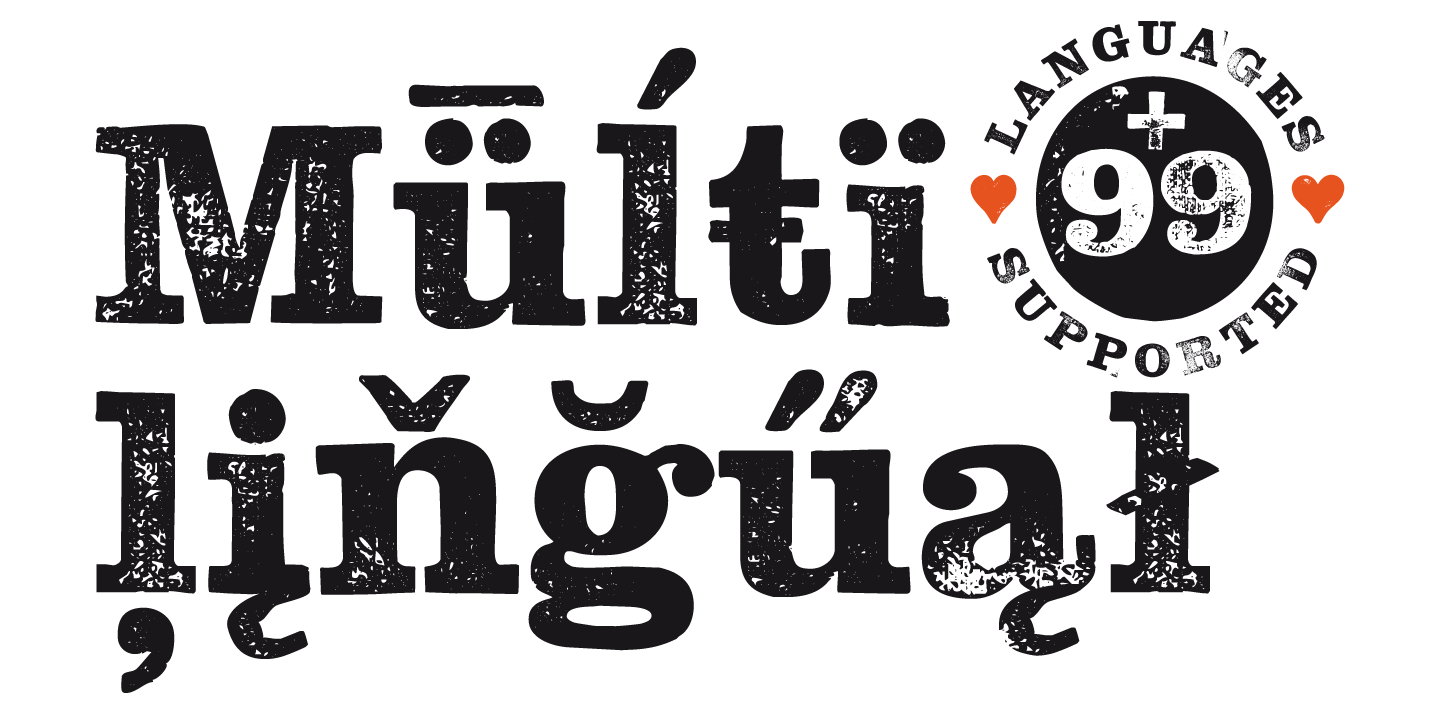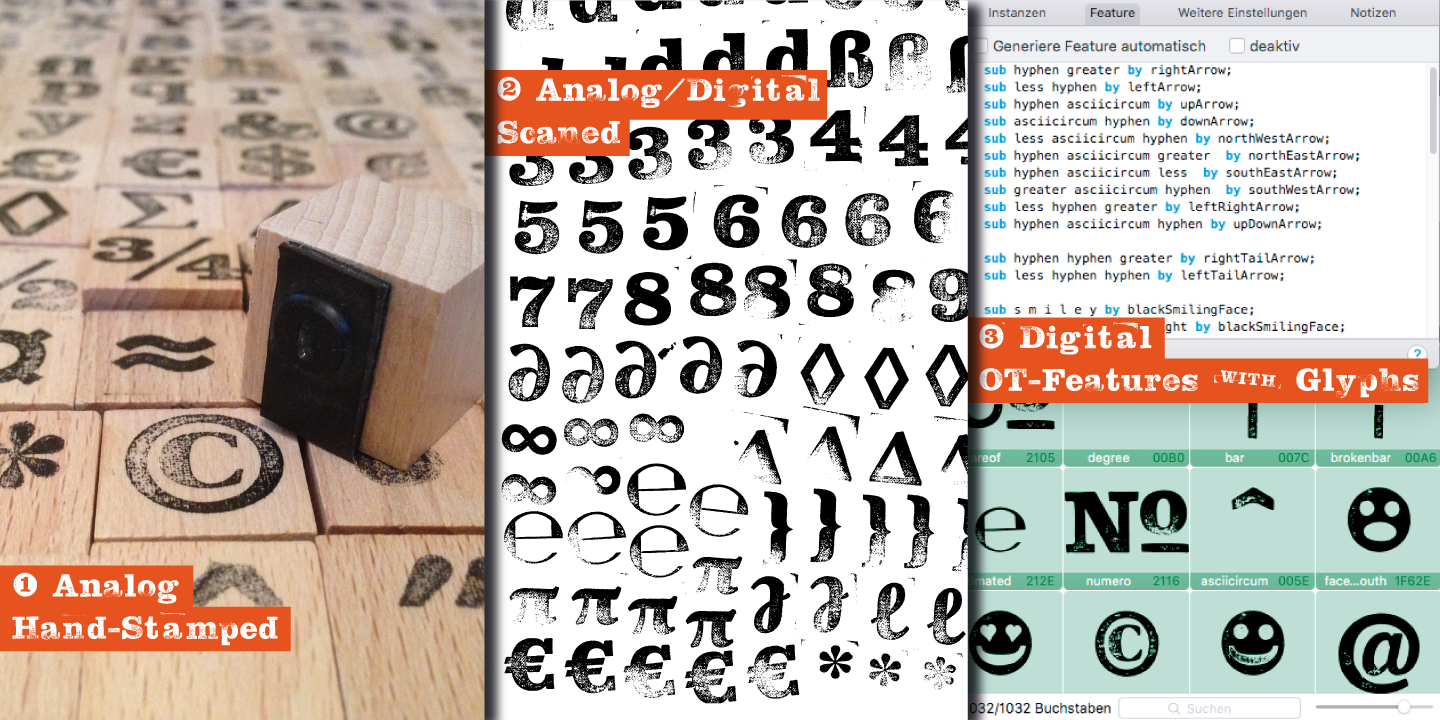
Unleash the Raw Power of Handmade Typography
Imagine you’re rummaging through a vintage treasure trove, searching for that perfect, one-of-a-kind font to elevate your design game. You stumble upon a worn, rubber-stamped letter, and suddenly, the perfect font materializes before your eyes. Welcome to the world of Hand Stamp Slab Serif Rough Mix Font, a masterpiece designed by Manuel Viergutz for Typo Graphic Design in 2017.
This incredible font is more than just a display typeface – it’s an experience. With its authentic, rough, and dirty used stamp-style, it’s perfect for adding a touch of vintage charm to your designs. From logos to magazines, posters to advertisements, the Hand Stamp Slab Serif Rough Mix Font is a versatile tool that will take your creative vision to the next level. Its unique blend of classic slab serif typography and hand-stamped character makes it a valuable asset for designers looking to add a personal touch to their work.
Key Features of “Hand Stamp Slab Serif Rough Mix Font”
- Unique Characteristics: The “Hand Stamp Slab Serif Rough Mix Font” features a unique, hand-stamped aesthetic with rough, irregular edges and subtle texture, adding a touch of organic charm to any design.
- Legibility: Despite its rough appearance, the font is surprisingly legible, making it suitable for body text as well as headlines and titles.
- Comprehensive Character Set: The font includes a comprehensive set of characters, including Latin, Cyrillic, and Greek alphabets, as well as punctuation and special characters.
Hand Stamp Slab Serif Rough Mix Font Review
First impressions of Hand Stamp Slab Serif Rough Mix Font are quite positive. The font’s unique blend of rough and slab serif characteristics gives it a distinctive look that’s perfect for creative projects. The font works well in a variety of contexts, from logos and branding to editorial design. ✨
- The font’s rough texture adds a tactile feel that’s engaging and eye-catching.
- It’s highly versatile and can be used in a range of font sizes and styles.
- The font’s slab serif elements provide a sense of balance and stability.
However, there are some limitations to consider. ⚠️ The font’s rough texture can sometimes make it difficult to read, particularly in smaller font sizes. Additionally, the font may not be suitable for projects that require a high level of precision or accuracy.
Overall, I’m impressed with Hand Stamp Slab Serif Rough Mix Font. It’s a great choice for designers who want to add some visual interest to their projects without sacrificing readability. With a little care and attention to detail, this font can help take your designs to the next level.
Hand Stamp Slab Serif Rough Mix Font: A Practical Application Guide
For a distressed look, apply a texture or a gradient to the font, or use the “Drop Shadow” effect to add depth and dimension.
In PowerPoint and Word, use the Hand Stamp Slab Serif Rough Mix Font to add a touch of personality to your presentations and documents. Apply the font to headings and titles, and experiment with font sizes and colors to create visual hierarchy.
To make your text stand out, use the font in bold or italic styles, and consider adding a background color or texture to enhance the font’s appearance.
Use the Hand Stamp Slab Serif Rough Mix Font for creative projects, such as invitations, posters, and social media graphics. It’s also suitable for editorial and publishing projects, where a rough, handmade look is desired.
Experiment with different font sizes and styles to create visual interest and emphasize key points in your design.